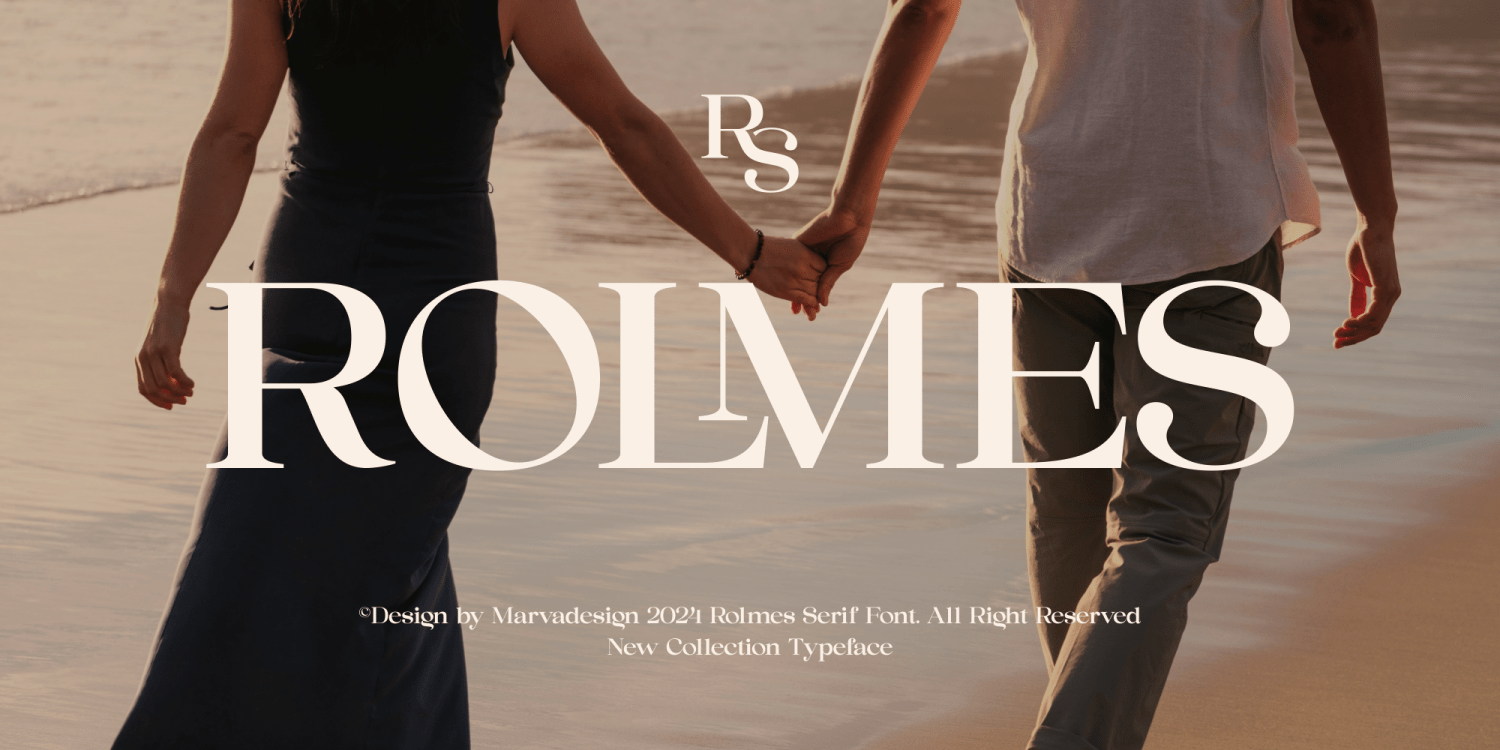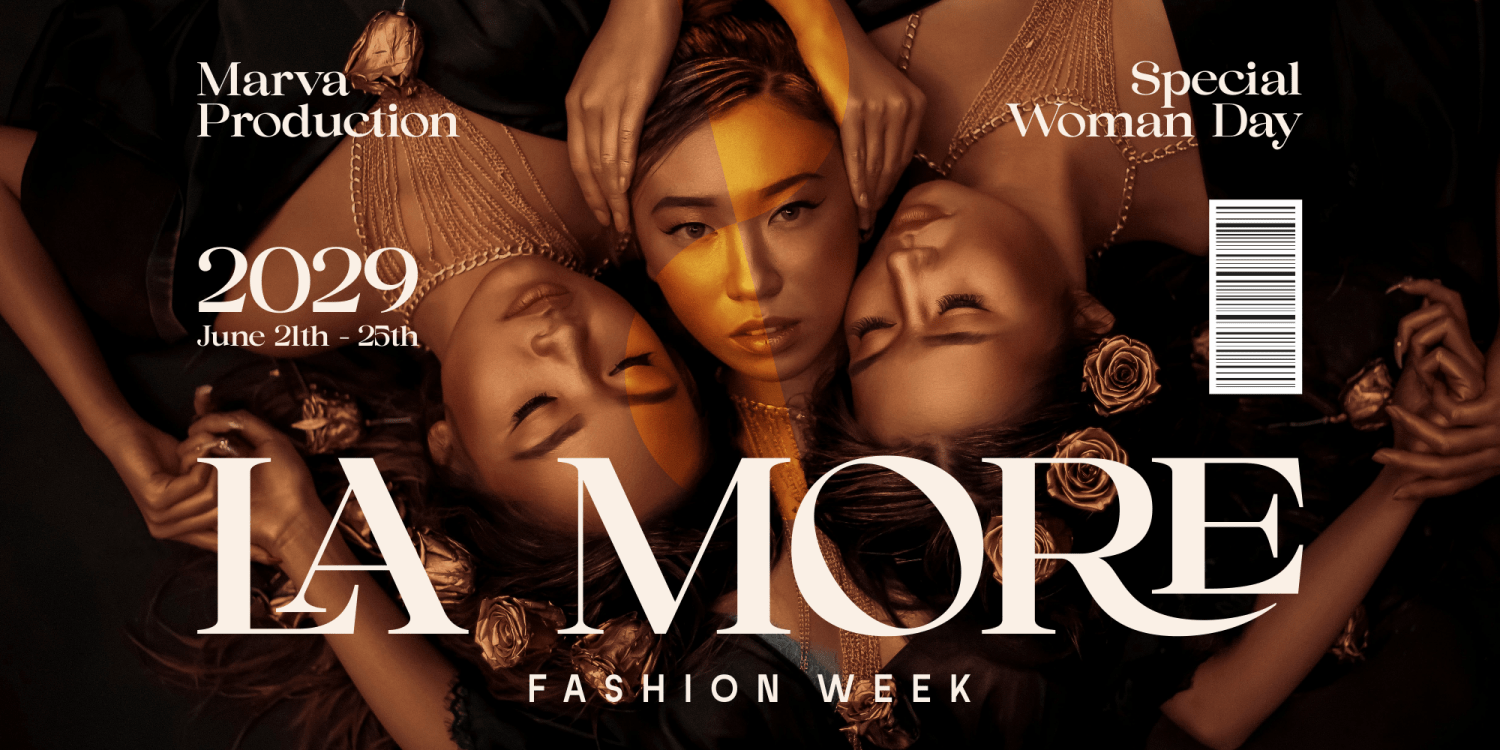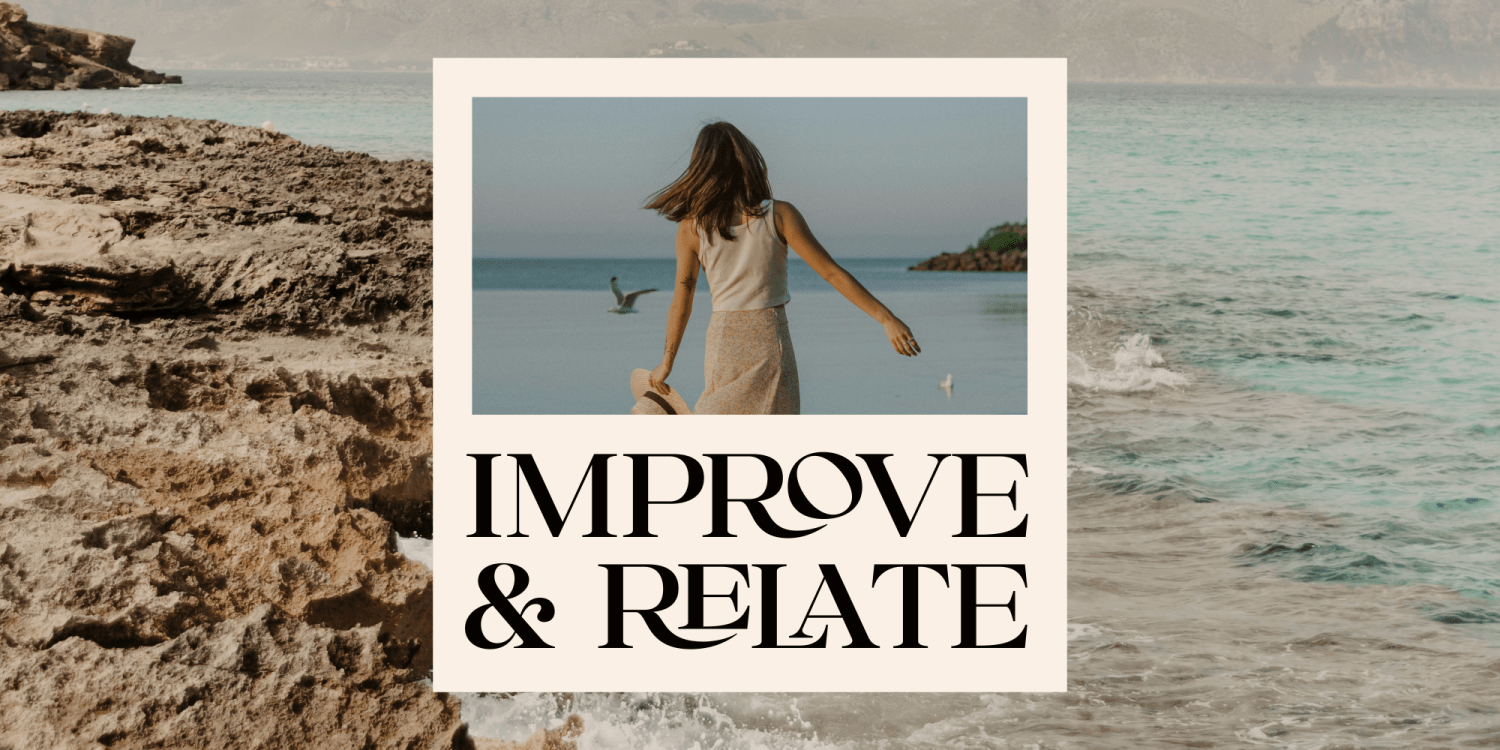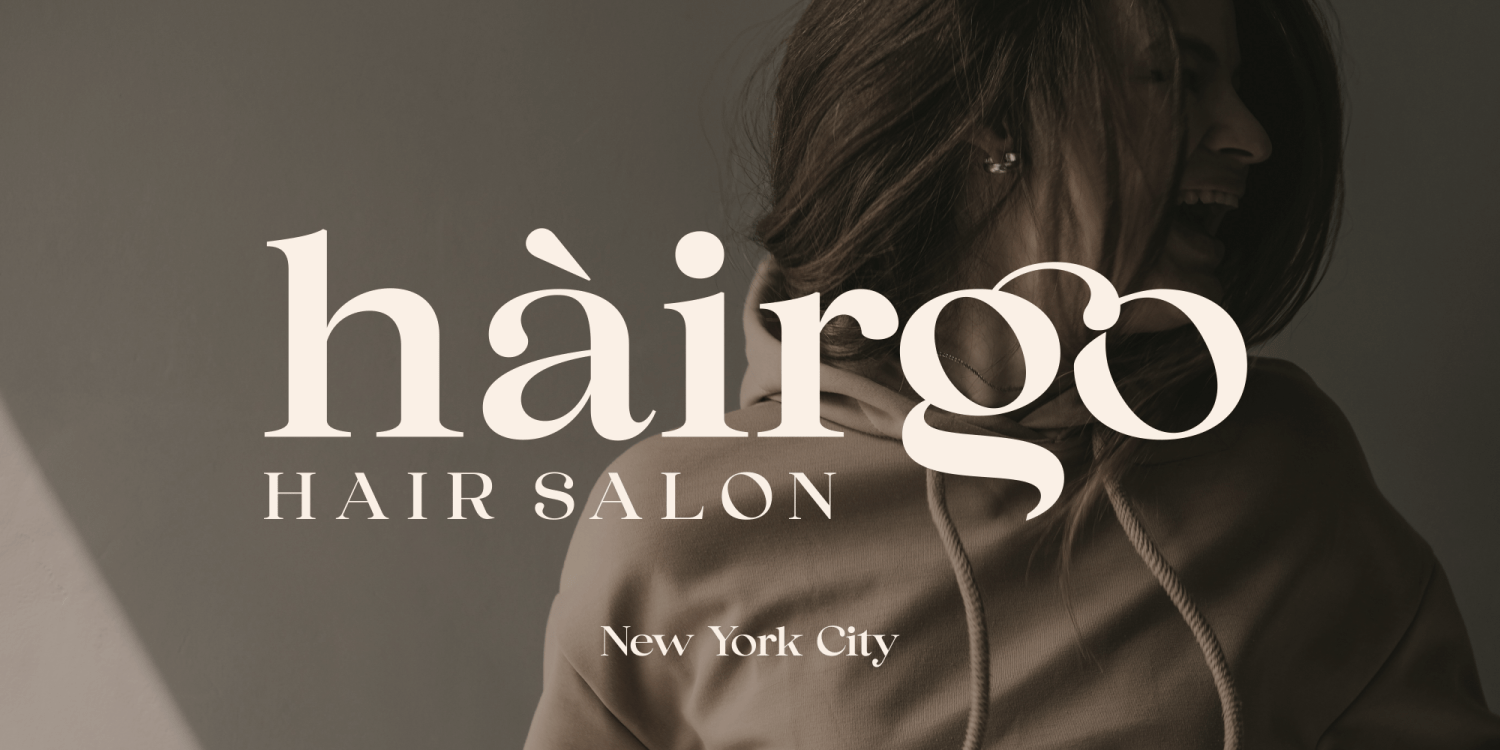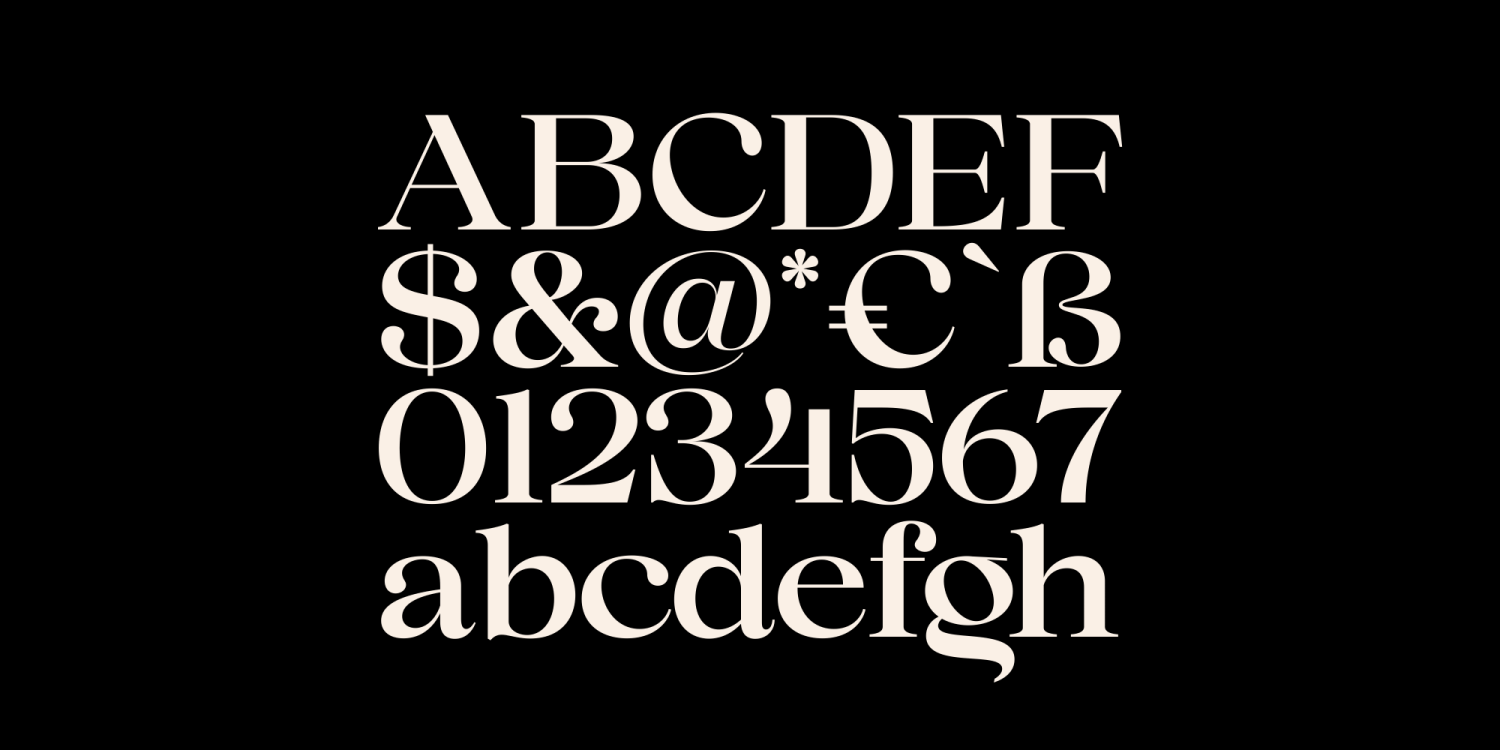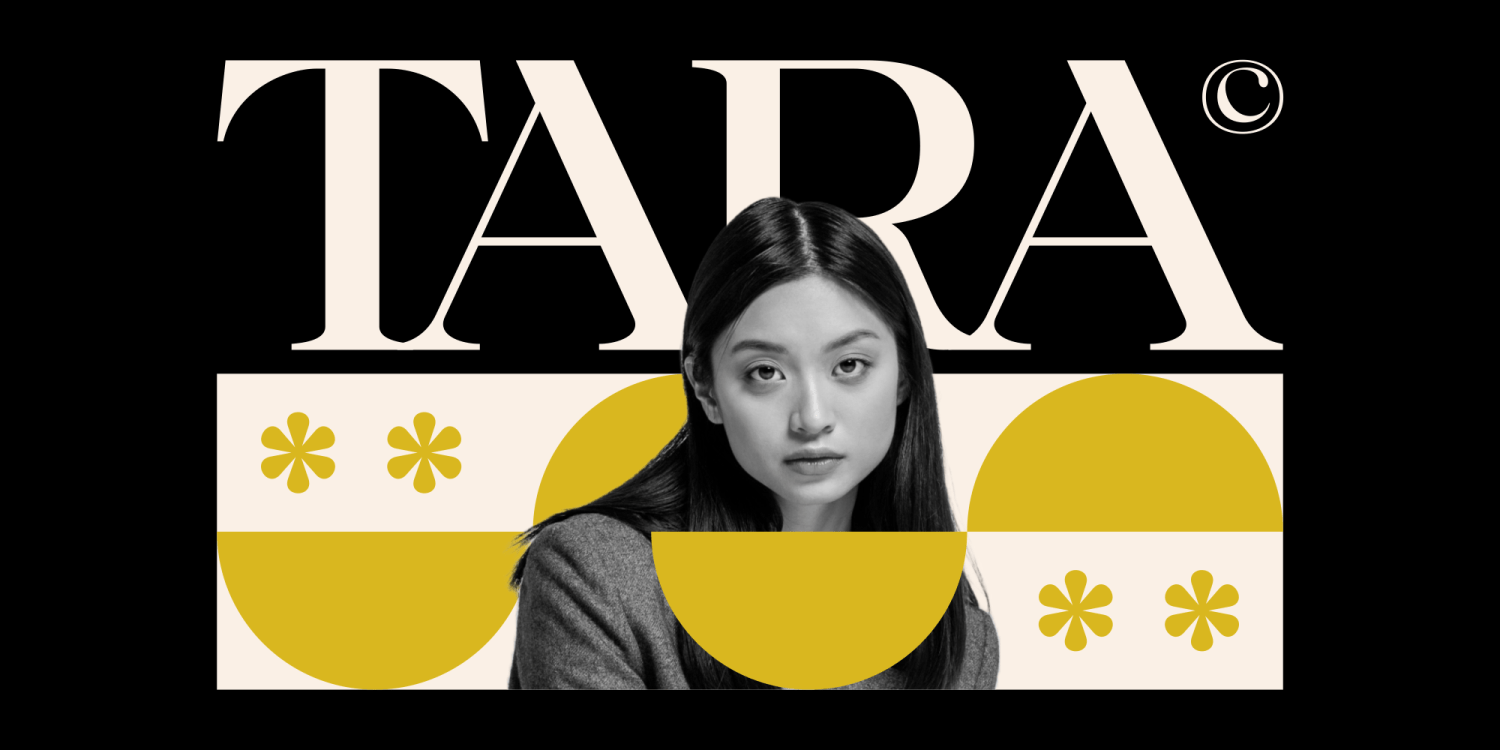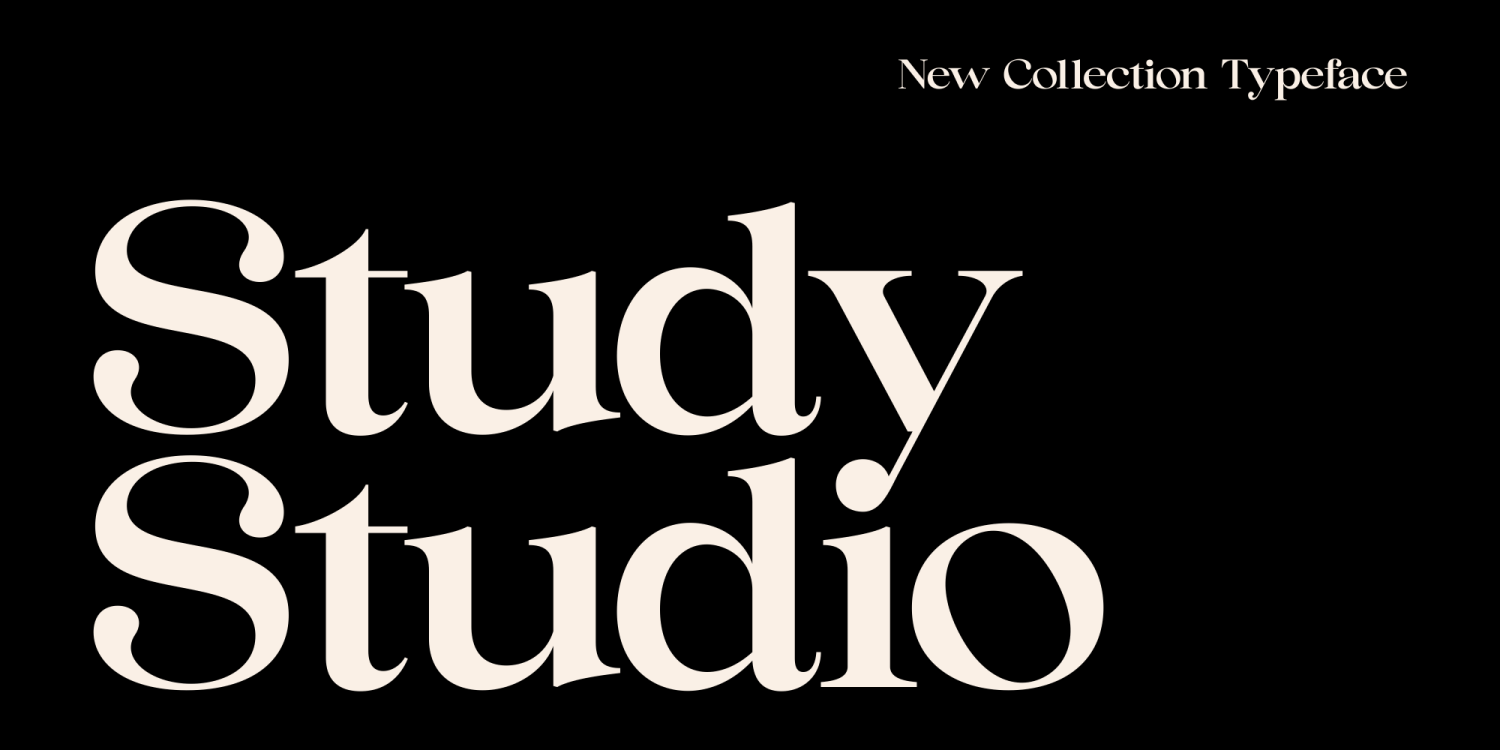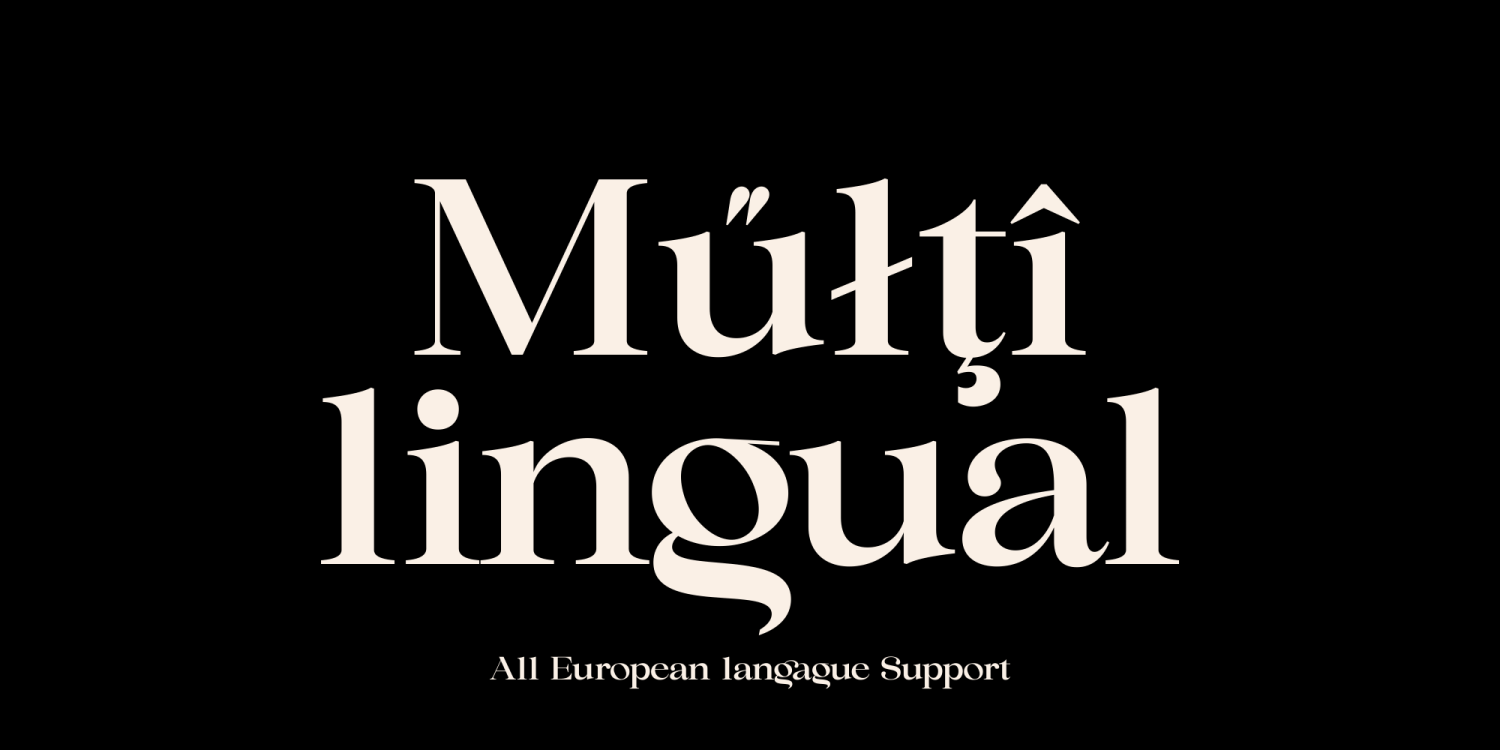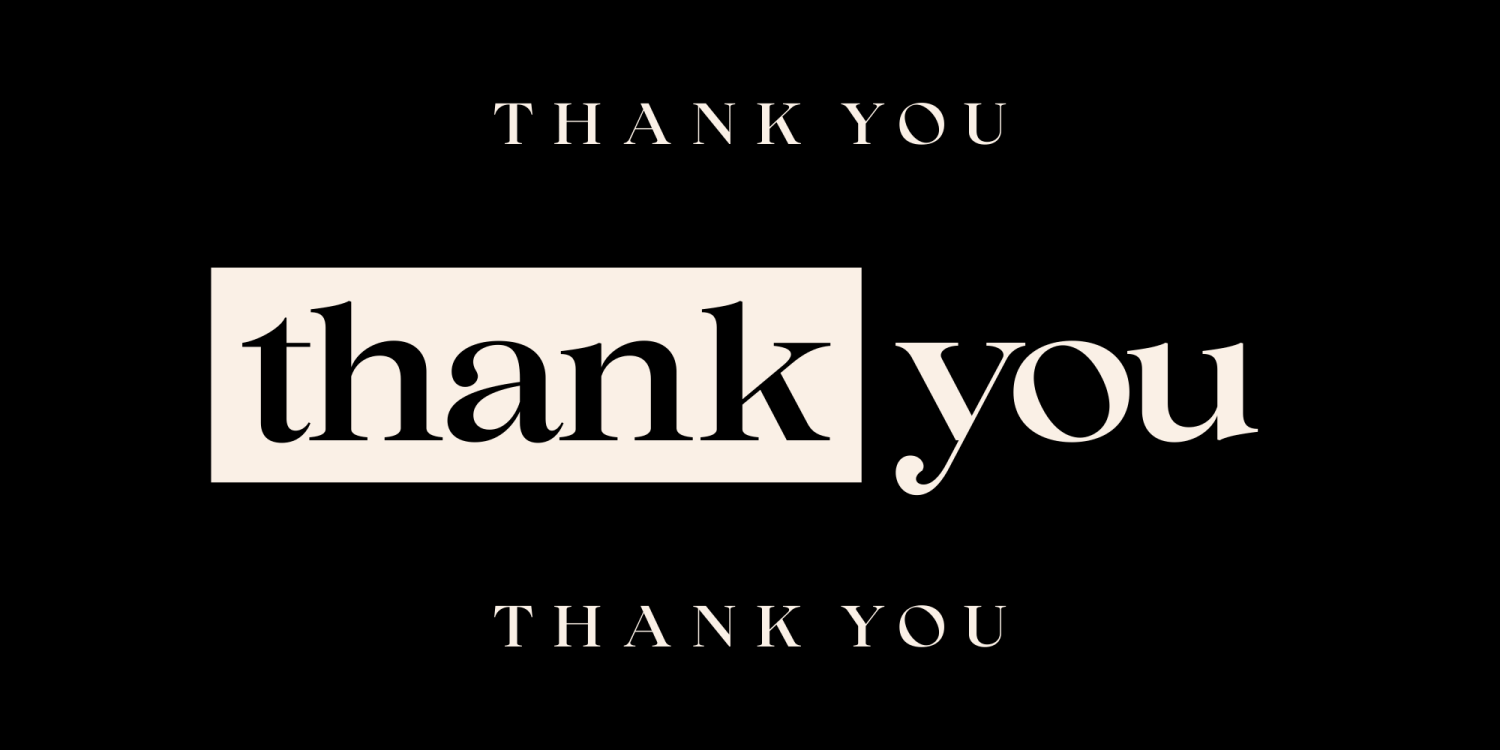
Rolmes
Font Family by Marvadesign
Introducing The Rolmes font is a serif display style font that presents its beauty and uniqueness through many alternative characters and ligatures. Each letter is designed with unique characteristics, allowing users to recognize this font easily. With a variety of alternatives and ligatures available, this font offers high transmission in its usability, both for graphic design and print purposes.
One of the main advantages of the Rolmes font is its multilingual completeness. With support for multiple languages, this font can be used effectively in projects that require text in multiple languages. Whether it's English, other languages in Europe, Asia, or even less common languages, these fonts ensure that text looks consistent and professional in all contexts.
Not only that, the Rolmes font also distinguishes itself with an elegant and modern serif style. Every detail is carefully thought out to create a strong impression and charming aesthetic. As such, this font is suitable for use in a variety of design projects, from branding to marketing materials and even publications.
In an English context, the Rolmes font effortlessly reflects shades of boldness and daring. Its unique characteristics and ability to adapt to a variety of writing styles make it a top choice for those who want to highlight their message with a distinctive and professional style.